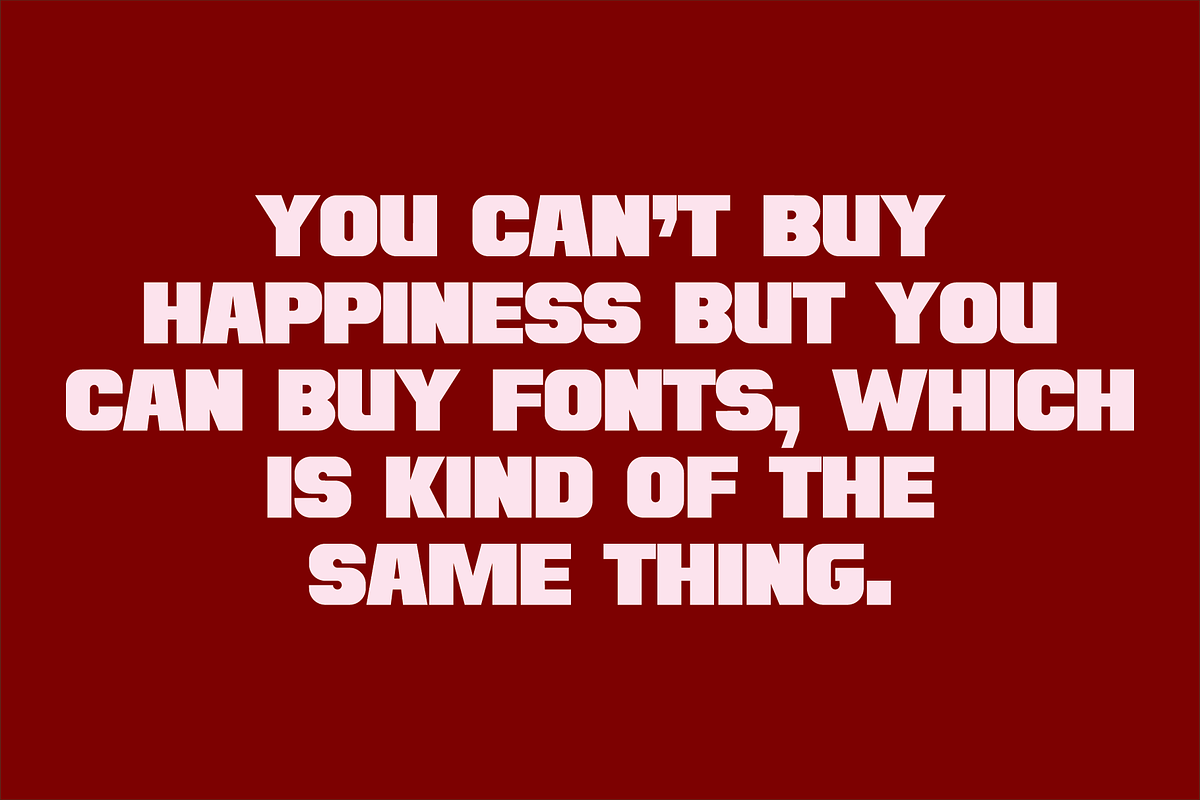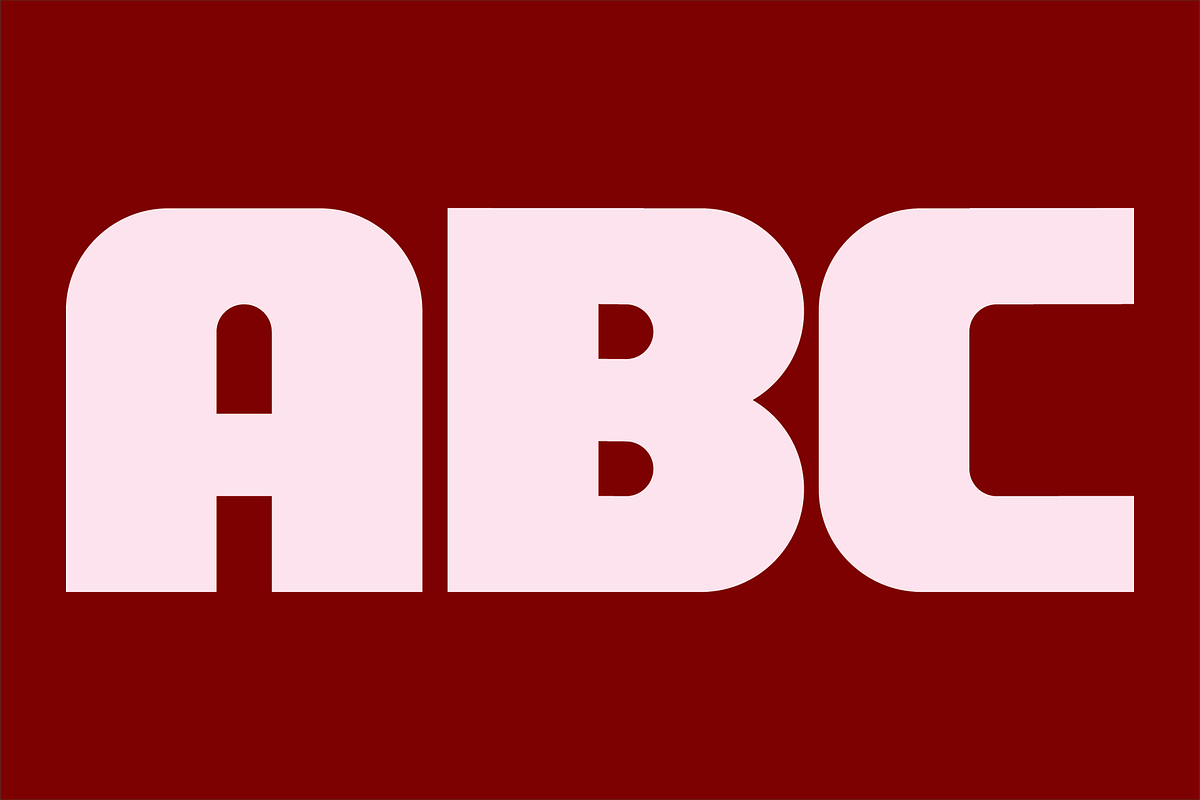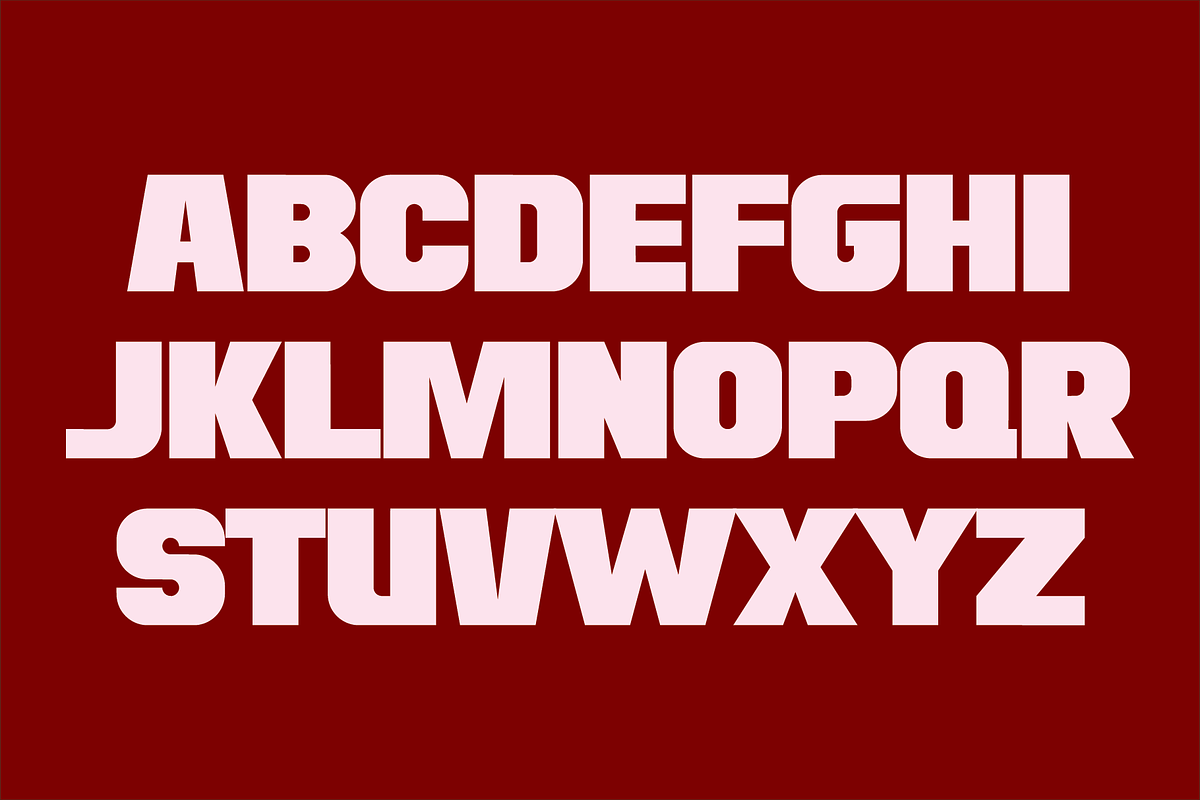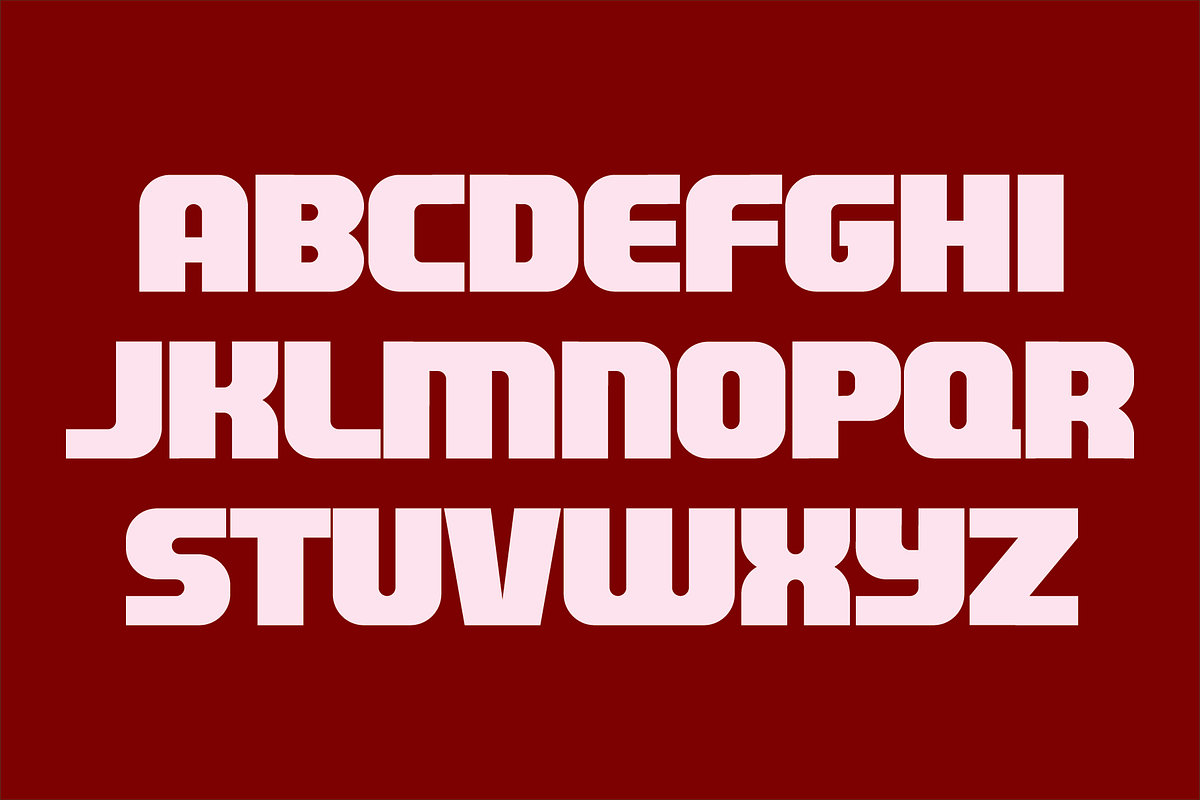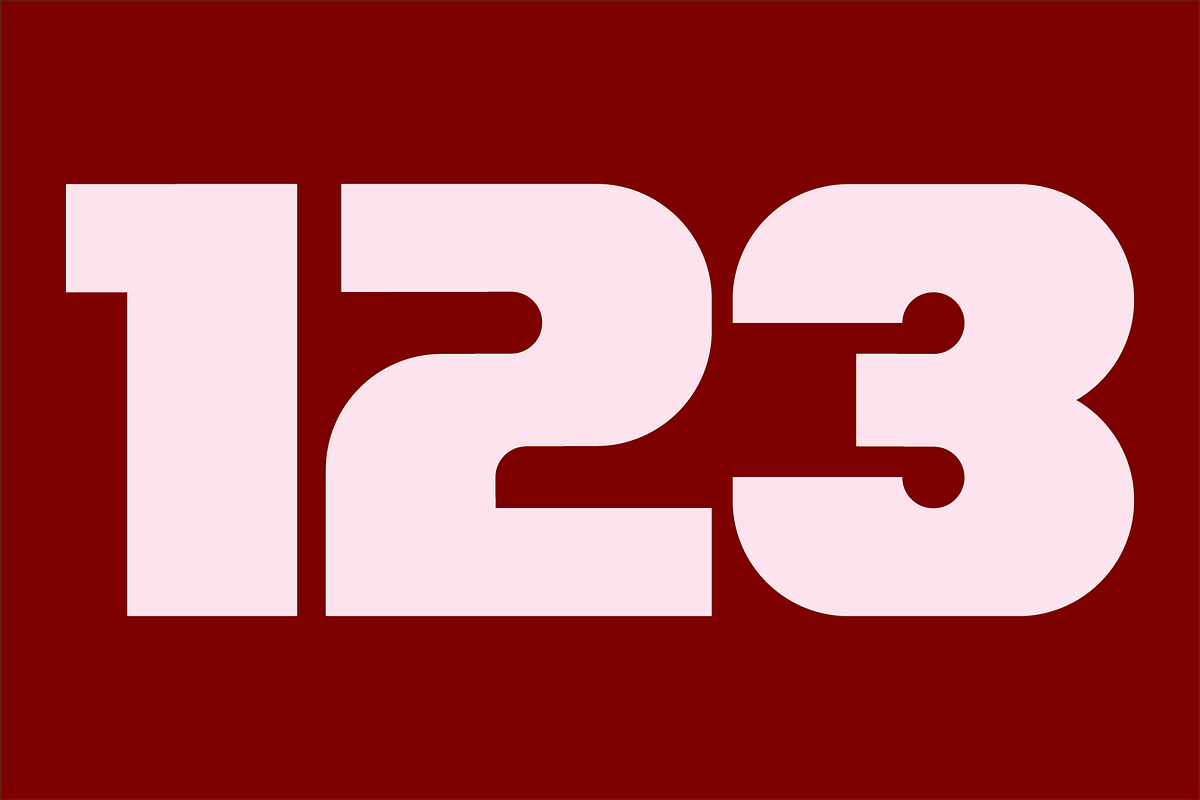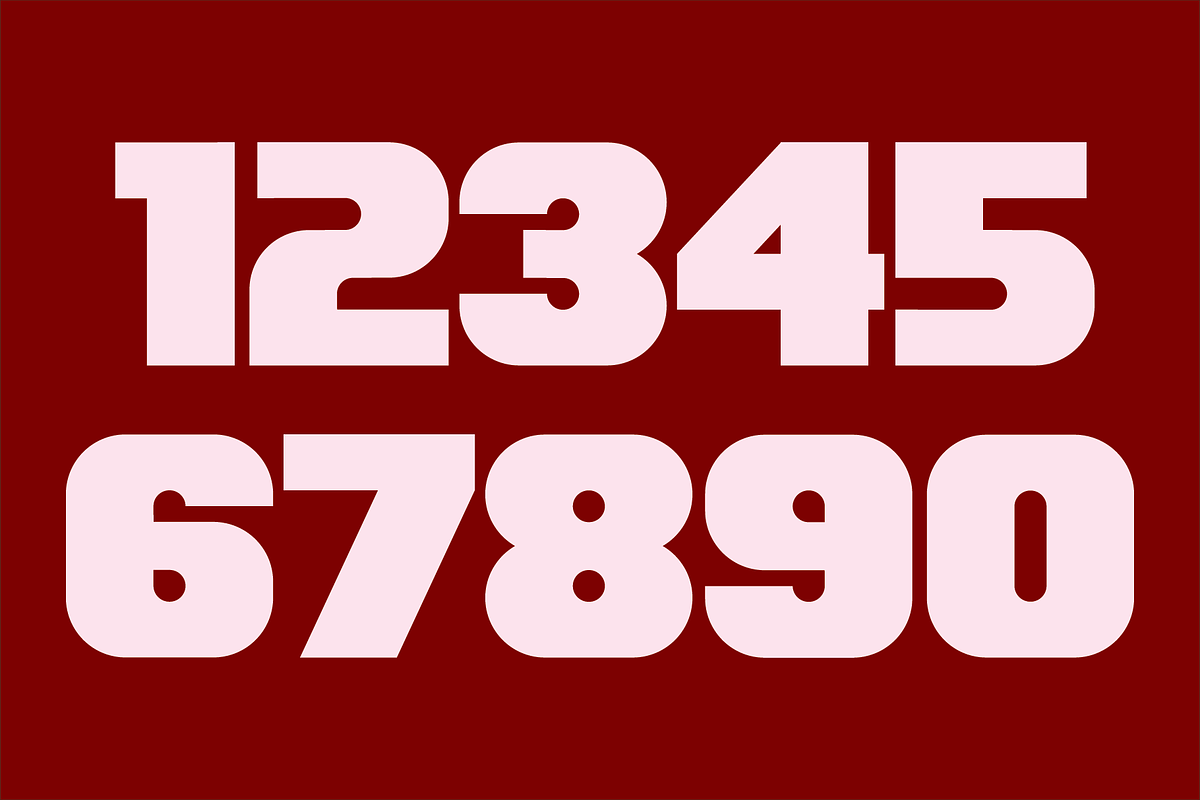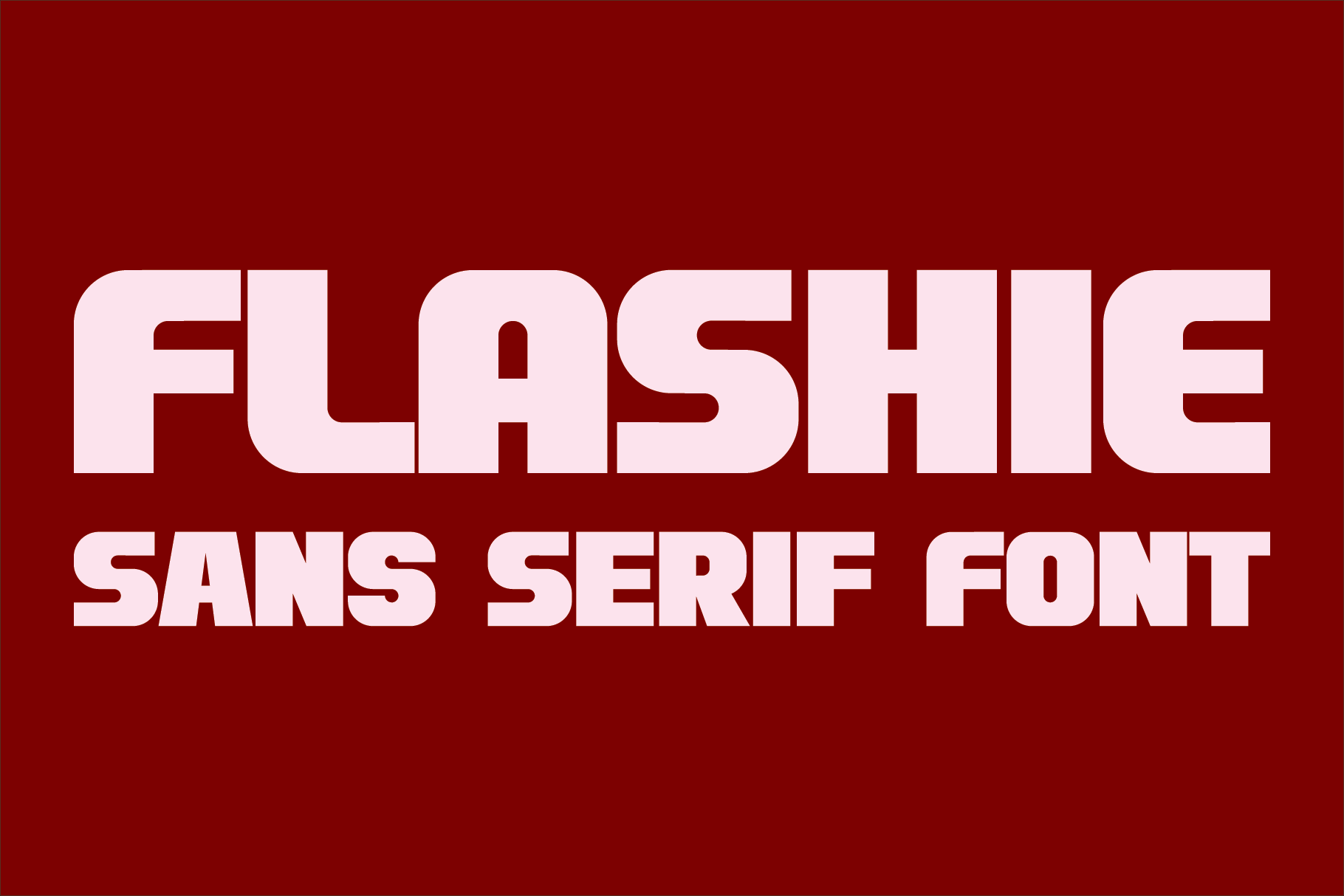
Flashie - Sans Serif Font
Flashie is an all caps, very bold contemporary sans serif font. Under the lowercase keys are alternate characters for A, C, E, F, K, L, M, N, R, S, U, W, X, Y. It is ideal for headlines, titles, branding and small blocks of text.